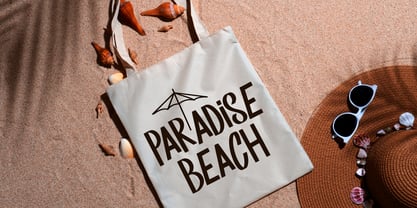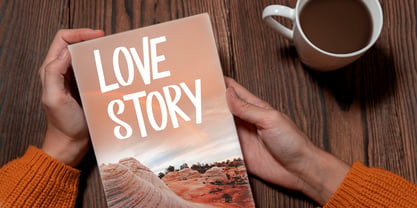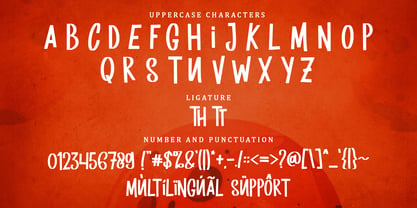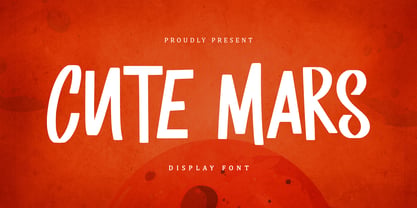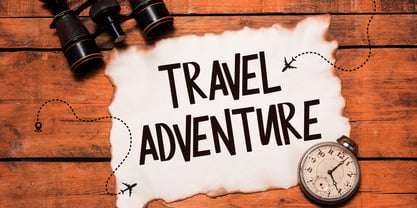
Cute Mars
by Sakha Design
The Cute Mars Font Family was designed by Alif Ryan Zulfikar and published by Sakha Design. Cute Mars contains 2 styles and family package options. More about this family
Cute Mars is a playful handwritten font that adds a delightful charm to designs. Ideal for greeting cards, children’s projects, and social media graphics, its whimsical style brings creativity and fun to any visual concept.
Designers: Alif Ryan Zulfikar
Foundry: Sakha Design